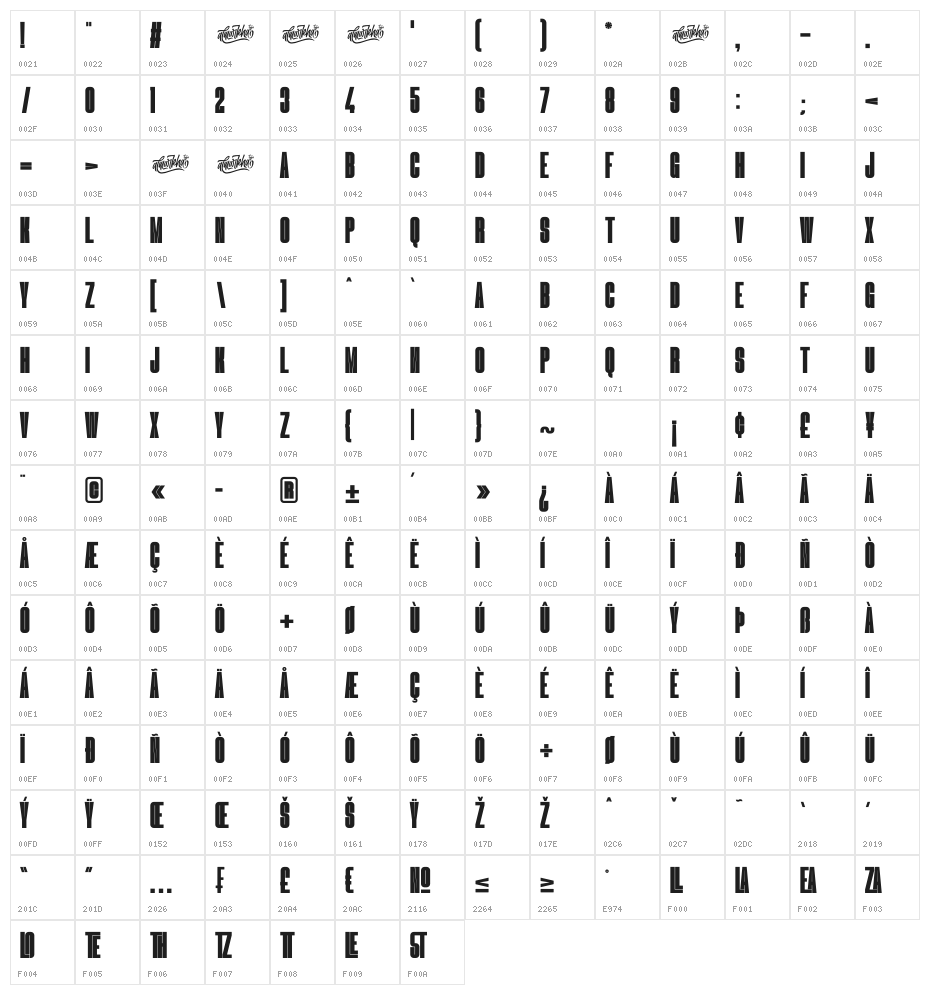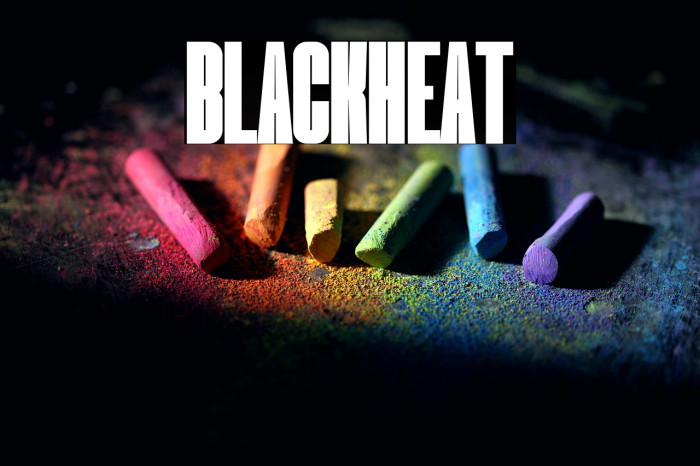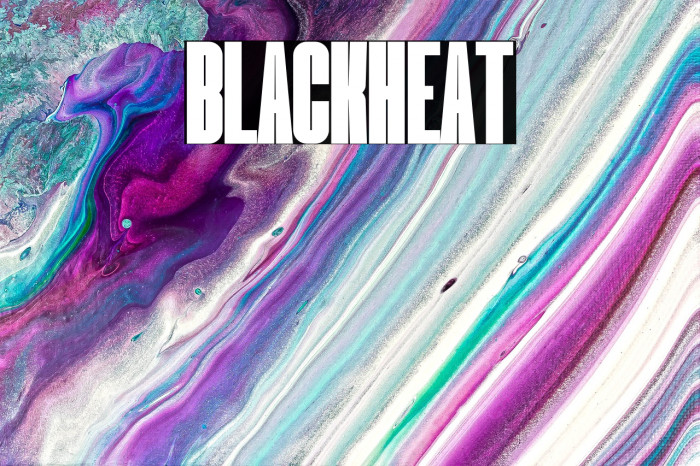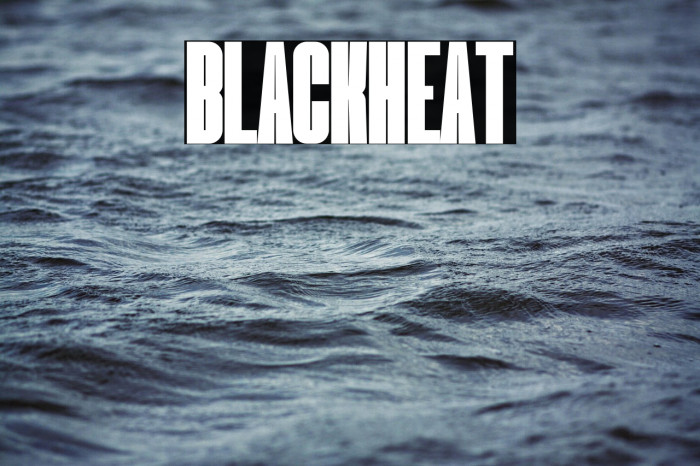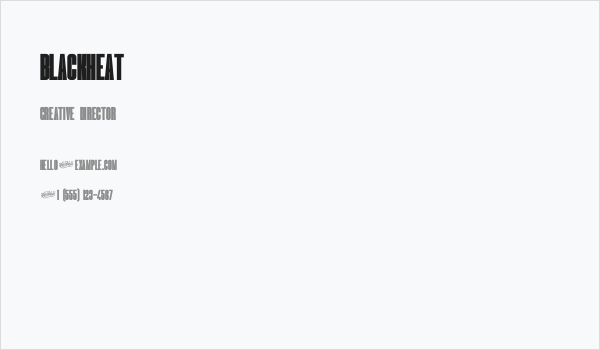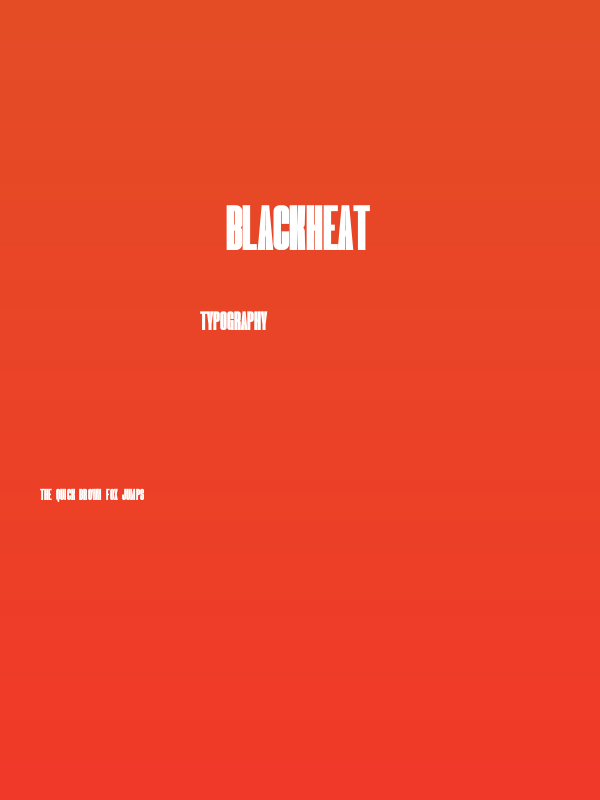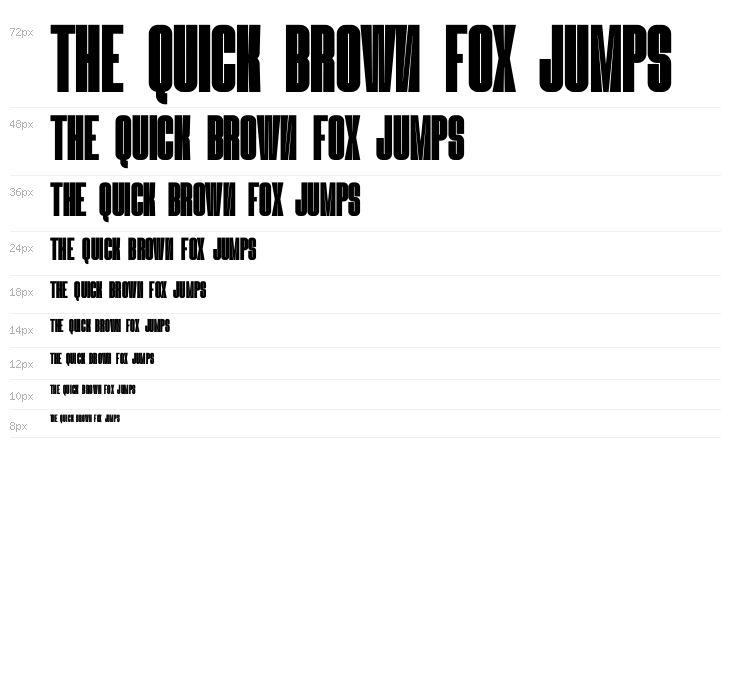
Blackheat Font
Blackheat Description
This font features a bold and impactful style with a strong presence. The letters are tall and condensed, creating a powerful visual impact. The uppercase and lowercase letters maintain a consistent weight, emphasizing the boldness of the design. The numbers follow the same style, ensuring uniformity across all characters. Special characters are included, adding versatility to the font. The overall design is modern and suitable for projects that require a strong and assertive typeface.
| Proposed Projects | Ideal for headlines, posters, branding, and any project that requires a strong visual impact. |